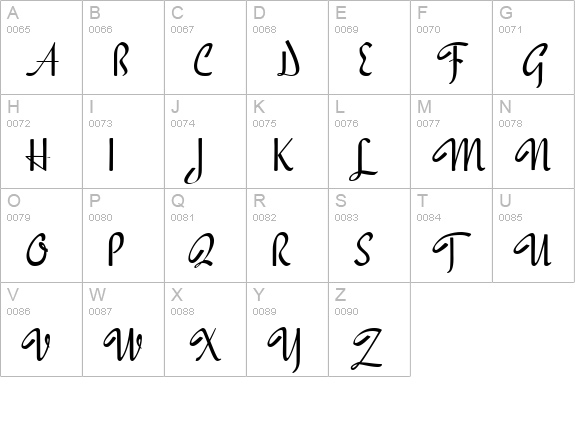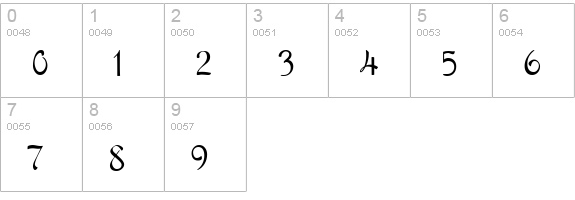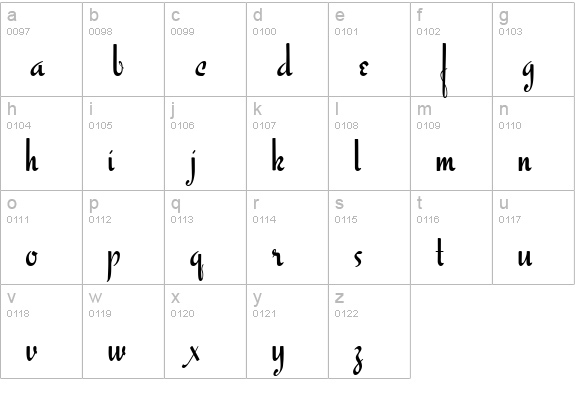
Famous Label font is a stylish and eye-catching typeface that exudes sophistication and elegance. It features sleek lines and a modern aesthetic that make it perfect for a wide range of design projects. Whether you're creating a logo, branding materials, or social media graphics, Famous Label font will elevate your designs to the next level. The best part? Famous Label font is available for free download at FontsMarket.com. This means you can add this stunning font to your collection without breaking the bank. Don't miss out on the opportunity to enhance your projects with the timeless appeal of Famous Label font. Download it today and watch your designs shine!